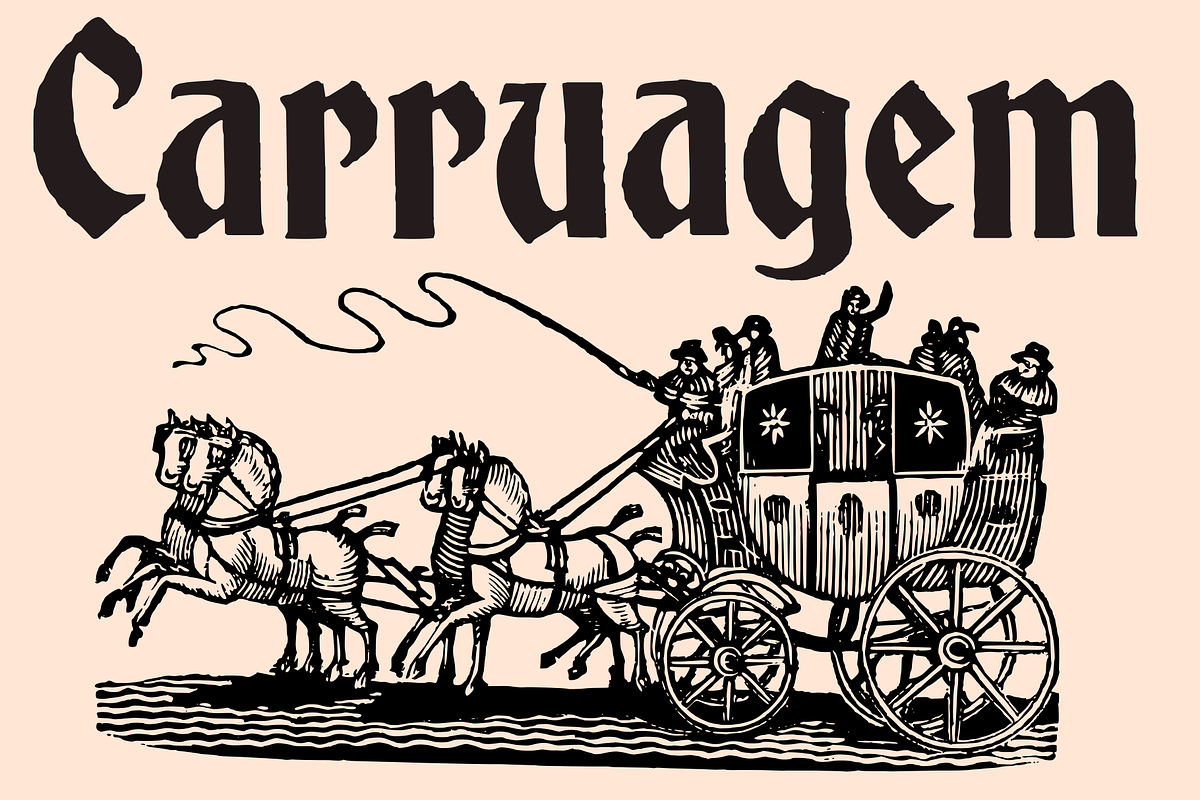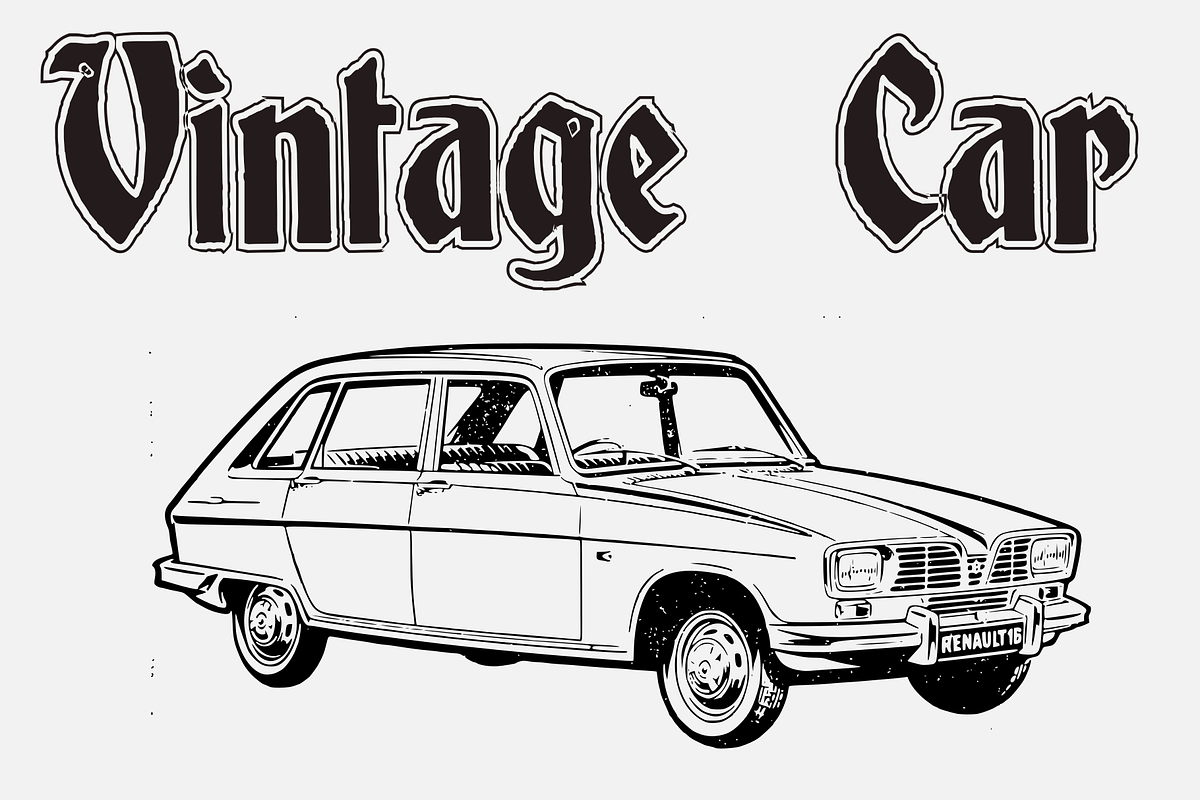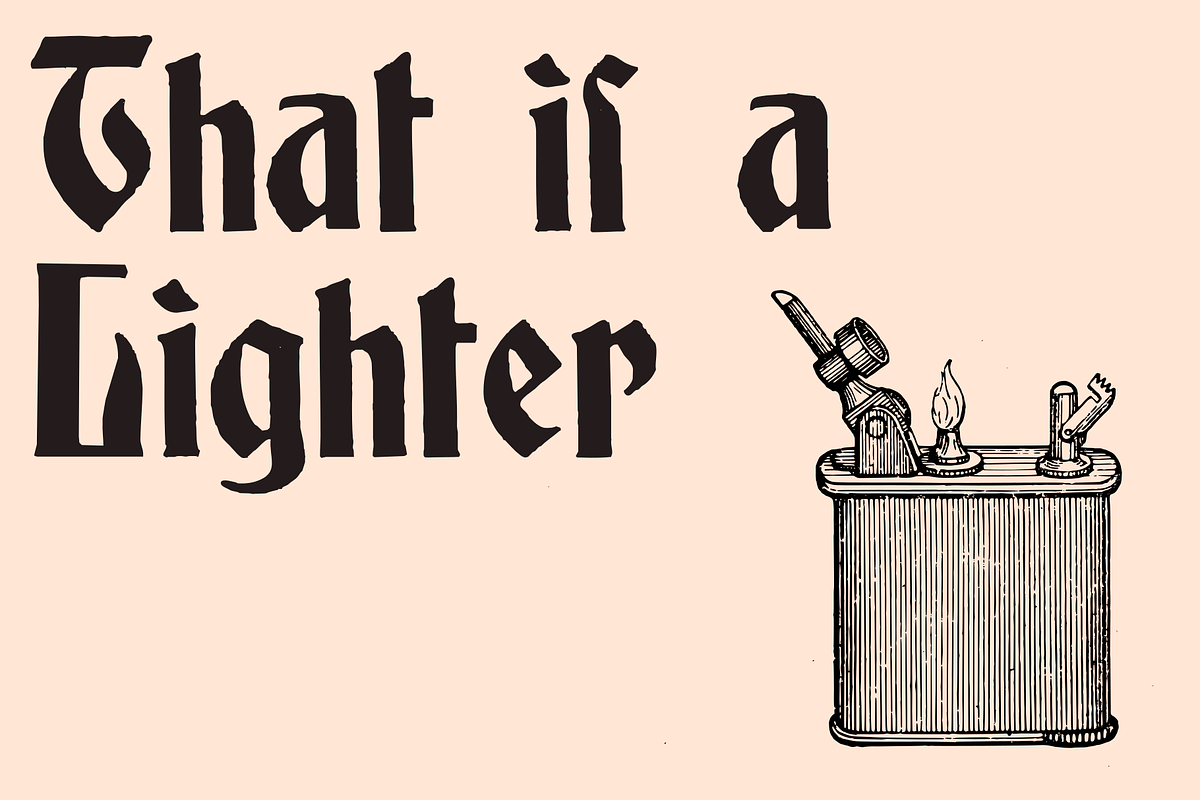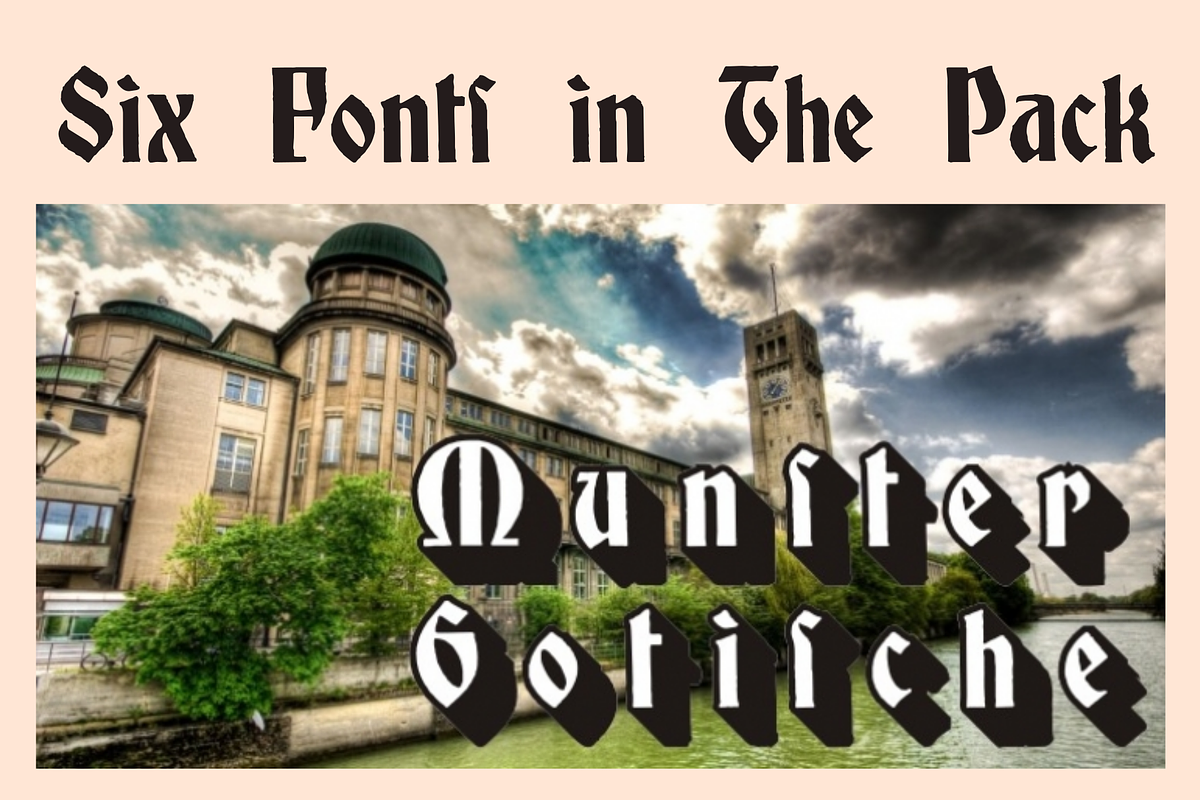
Munster Gotische
a blackletter family after a 1896 typeface by the same created by Schelter&Giesecke, a classic extinct foundry. SIX FONTS IN THE PACK